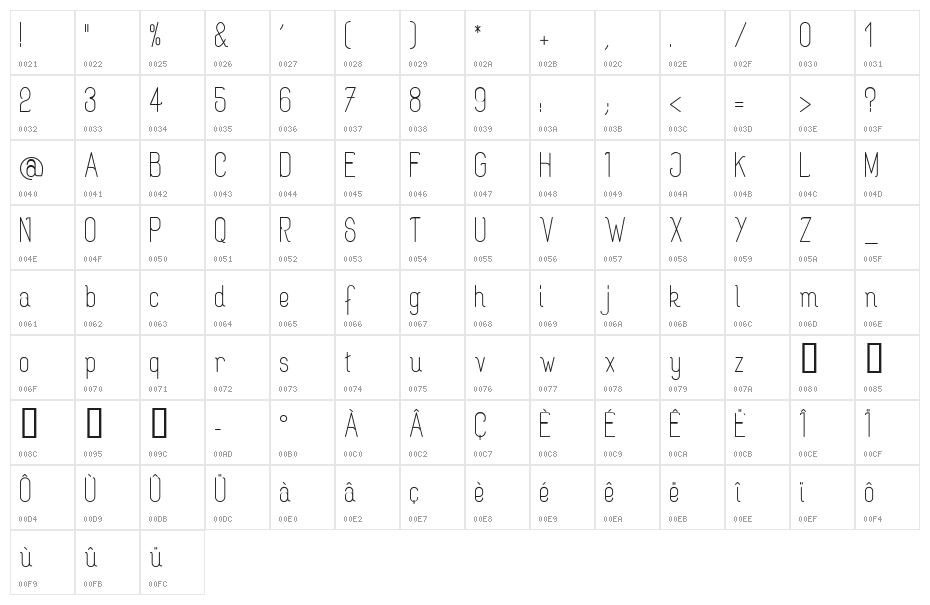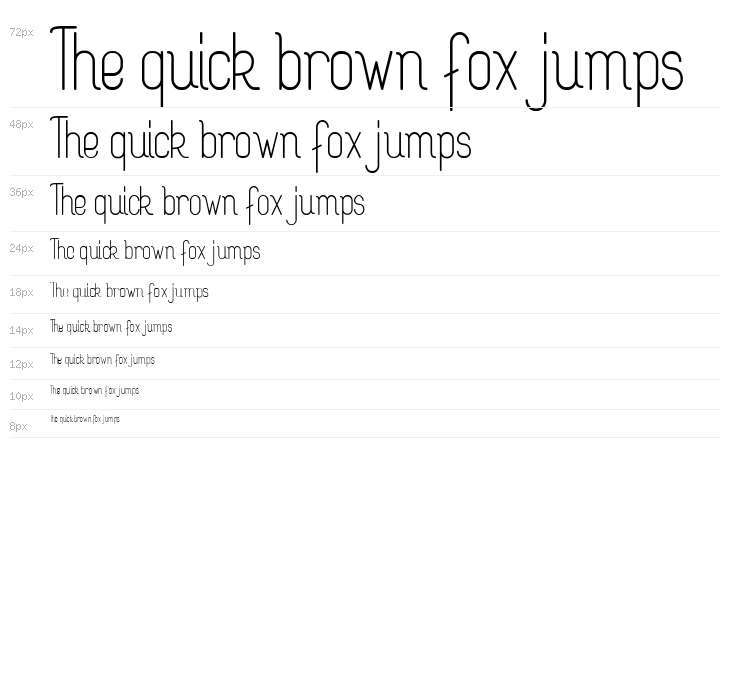
Rogaton Font
Rogaton Description
This font features a sleek, modern design with elongated, narrow characters that give it a distinctive and stylish appearance. The uppercase letters are tall and slender, while the lowercase letters maintain a consistent height, creating a harmonious balance. The numerals are similarly elongated, enhancing the font's contemporary feel. The special characters are crafted with the same attention to detail, ensuring a cohesive look across all glyphs. The thin strokes and minimal contrast between thick and thin lines contribute to its elegant and refined aesthetic, making it suitable for a variety of design applications.
| Proposed Projects | Ideal for fashion branding, modern websites, minimalist posters, and editorial layouts. |